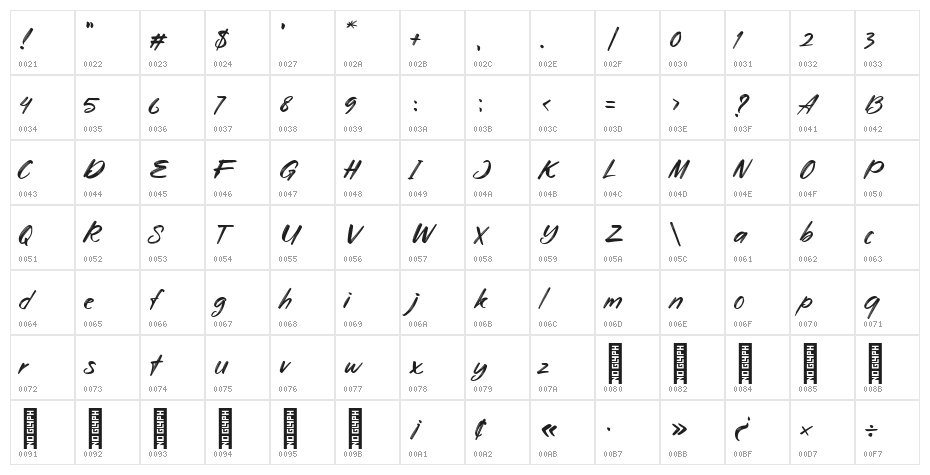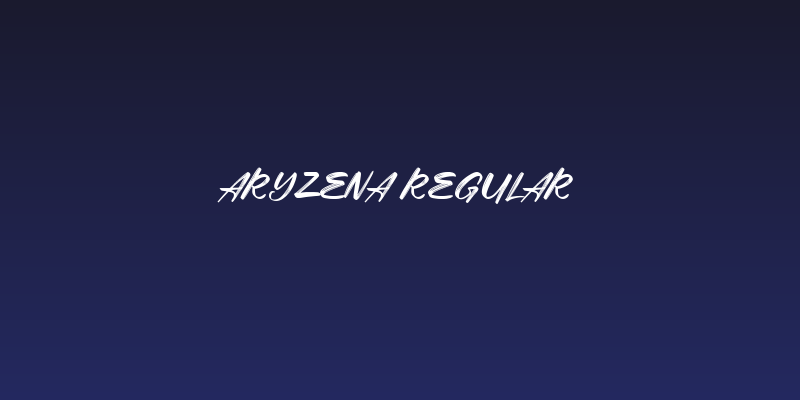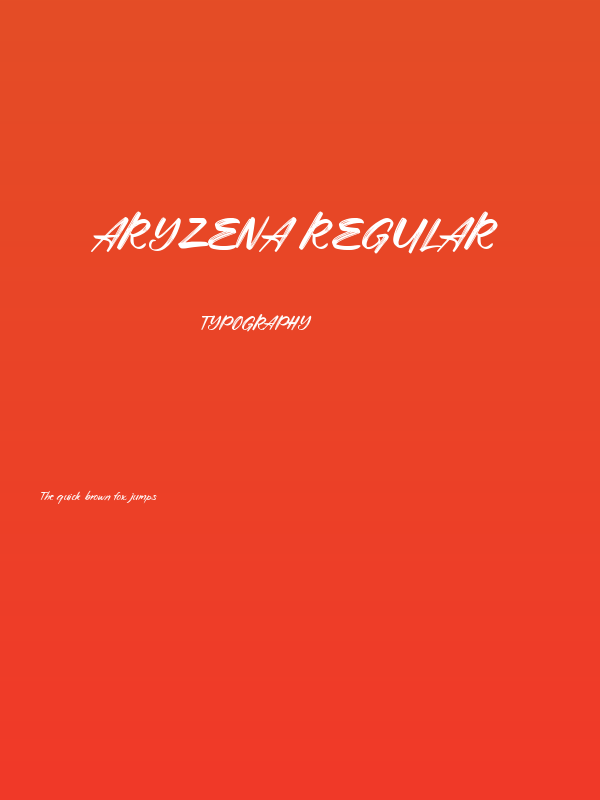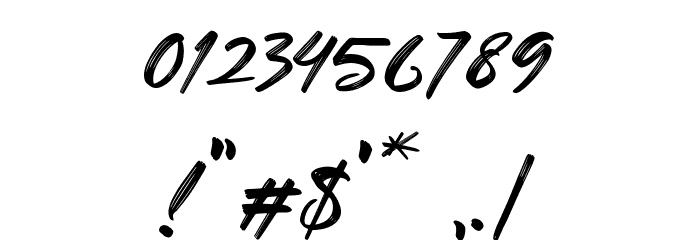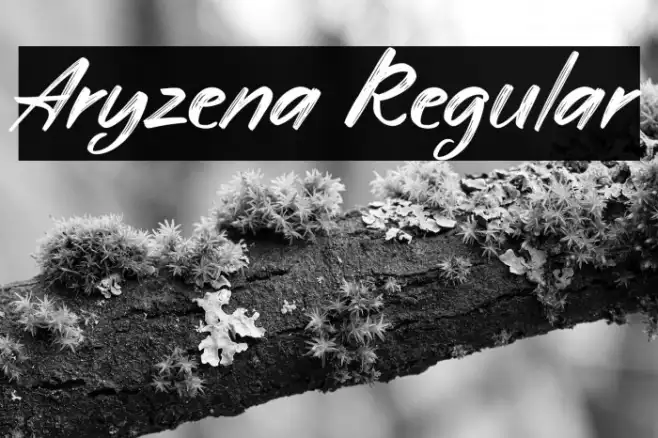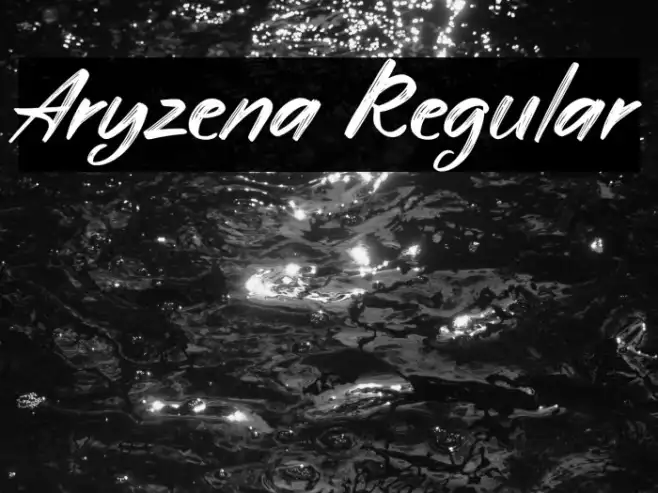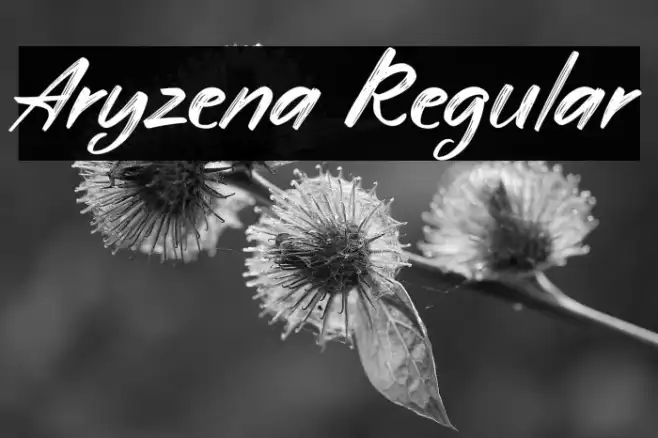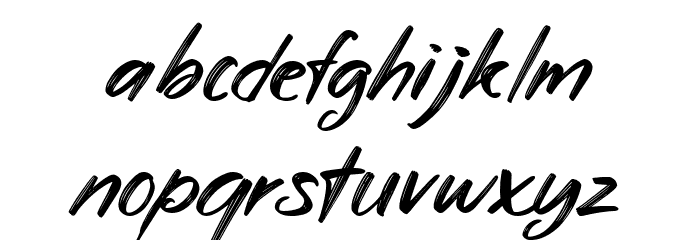
Aryzena Regular Font
Aryzena Regular Description
This font exudes a dynamic and energetic style, characterized by its bold, brush-like strokes that convey a sense of movement and fluidity. The letters are slightly slanted, adding to the impression of speed and spontaneity. Each character is crafted with a unique flair, featuring varying stroke widths that create a lively contrast. The uppercase letters are particularly striking, with their sweeping lines and dramatic presence. The lowercase letters maintain the same energetic style, offering a cohesive look throughout. The numbers and special characters are equally expressive, making this font suitable for creative and impactful designs.